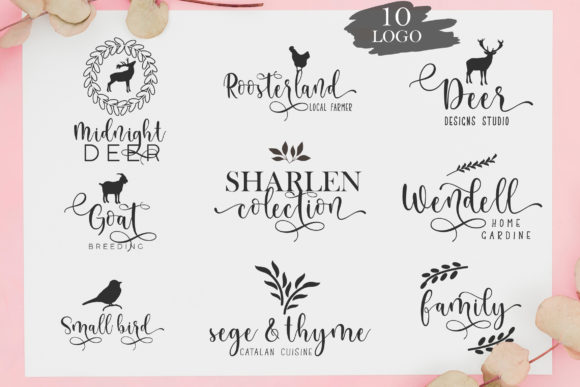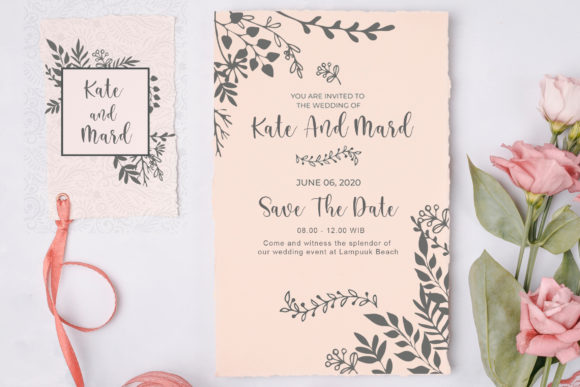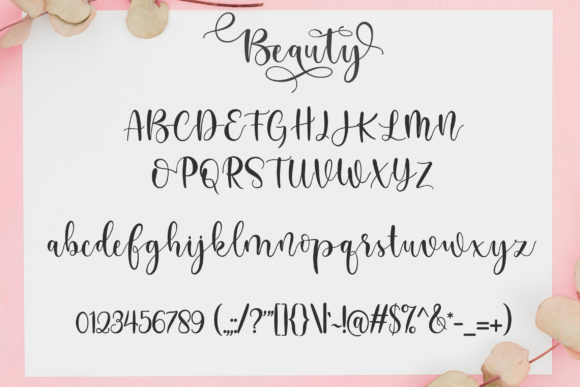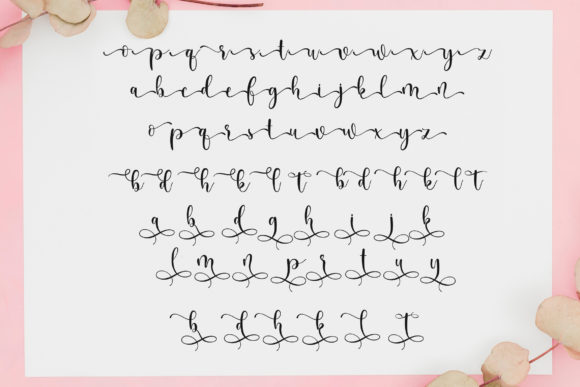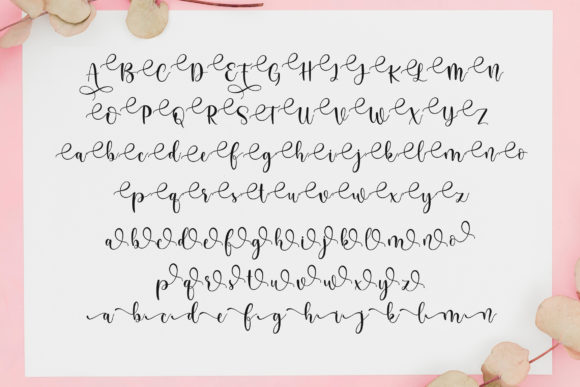
Unlock the Magic of Beauty Script Font
Have you ever stared at a blank page, feeling the weight of an unfinished project bearing down on you? The cursor blinks impatiently, taunting you to bring your vision to life. In those moments, the right font can be the spark that sets your creativity ablaze. For designers seeking to infuse their work with a touch of elegance and whimsy, there’s one font that stands out from the crowd: Beauty Script Font.
Beauty Script Font is a stunning script font designed to evoke a sense of effortless charm. Its light swashes and delicate curves make it perfect for a wide range of applications, from wedding invitations to fashion branding. Whether you’re a seasoned pro or just starting out, incorporating Beauty Script Font into your design repertoire can elevate your work and leave a lasting impression on your audience.
Key Features of Beauty Script Font
- Font Family: Beauty Script Font is a beautiful, elegant script font designed to add a touch of sophistication to any design project.
- Unique Characteristics: Beauty Script Font features beautiful, flowing connections between letters, making it perfect for use in titles, headings, and other display text.
Beauty Script Font Review
At first glance, Beauty Script Font ✨ seems like a beautiful addition to any design project. The font’s elegant, flowing script style adds a touch of sophistication and luxury to any text. I particularly appreciate the range of weights and styles available, which allows for a high degree of customization. Whether you’re creating a wedding invitation, a luxury brand logo, or a high-end marketing campaign, Beauty Script Font ✨ is sure to impress.
The font’s versatility and high-quality design make it a great choice for many designers. It’s also relatively easy to use, even for those who aren’t familiar with more complex typography.
While Beauty Script Font ✨ is a great choice for many designers, there are a few limitations to be aware of:
- ⚠️ Limited language support: Unfortunately, Beauty Script Font ✨ only includes support for a limited number of languages, which may be a problem for designers working on projects with a global audience.
- ⚠️ Limited customization options: While the font has a range of weights and styles, it’s not possible to customize the font to a great extent. This may limit its use in certain design projects.
Overall, I think Beauty Script Font ✨ is a beautiful and versatile font that’s well-suited to a wide range of design projects. While it has some limitations, its elegant design and high-quality typography make it a great choice for designers who want to add a touch of sophistication to their work.
Beauty Script Font is ideal for:
– Creating eye-catching headlines and titles
– Designing wedding invitations and stationery
– Adding a touch of elegance to social media graphics and blog posts
– Creating personalized gifts and cards